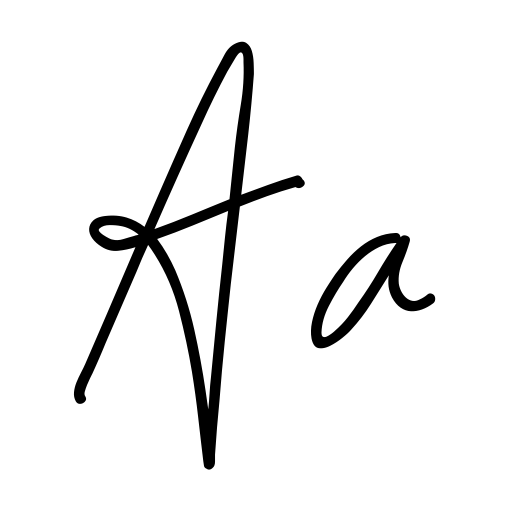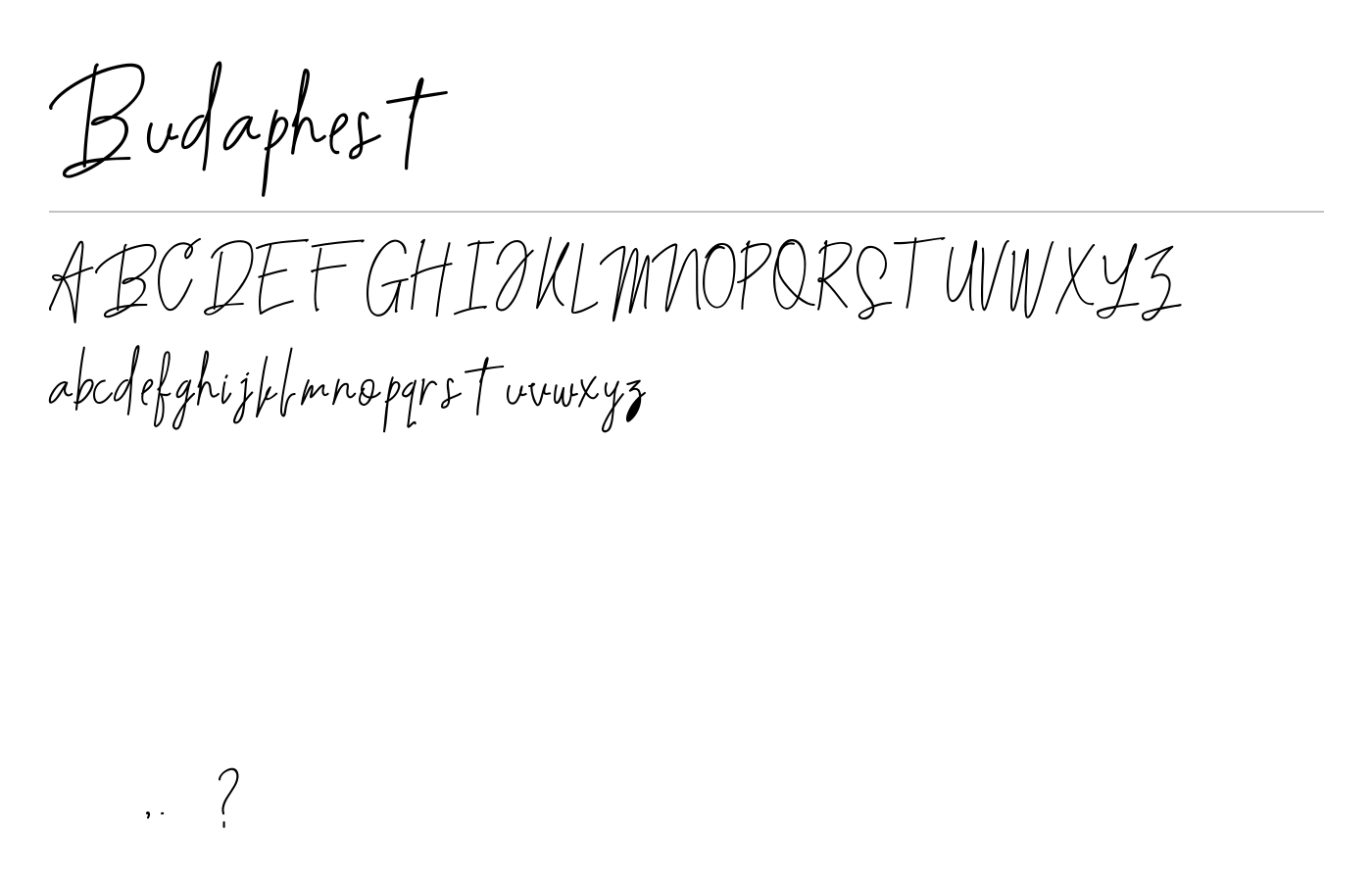
Budaphest is a delicate, handwritten script font with a tall, narrow structure and light weight, giving it a personal, artistic flair. Its thin, slightly irregular strokes and flowing letterforms evoke a casual yet elegant feel, perfect for creative branding, stylish invitations, or modern editorial headlines that seek a fresh and authentic touch. This font works best where a refined, approachable, and contemporary handwriting style is desired.
Budaphest Font
About Budaphest Font